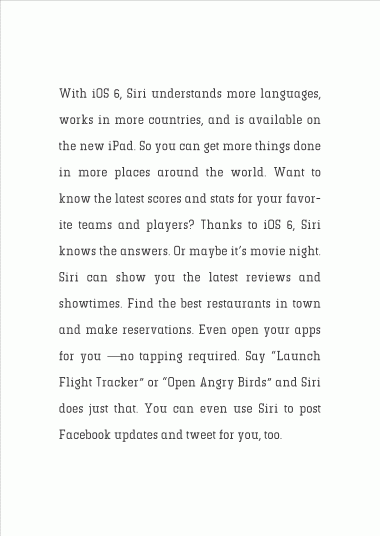
The font reminds me of Saturdays in the fall winning an ever-lasting game of blackjack. 5/5.
@rilencavy // Funny, as this is a Saturday in the (almost) fall! :-)
The sample shows what a very readable design this is - excellent! 10/10
This is so detailed. Fav+10/10
A beautifully balanced serif font. Will you add basic diacritics? 10/10